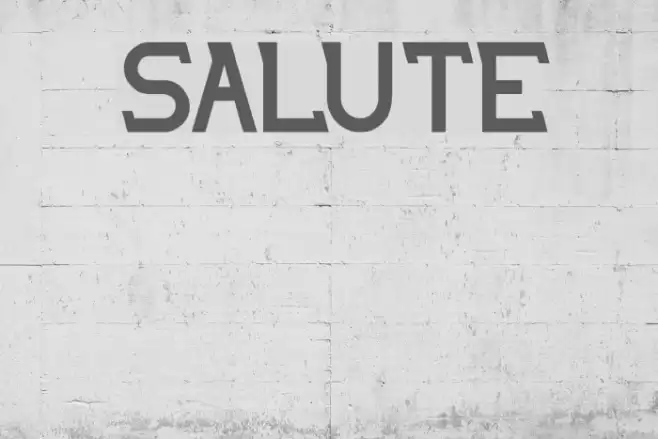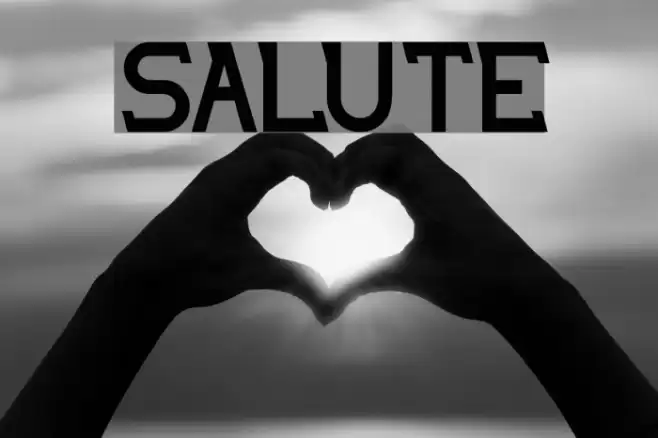
salute Font
salute Description
This font features a bold and geometric design with a modern aesthetic. The characters are constructed with strong, angular lines and a consistent stroke width, giving it a robust and impactful appearance. The uppercase letters exhibit a uniform height and width, creating a cohesive and structured look. The font's design is clean and straightforward, making it suitable for various applications where clarity and emphasis are needed. Its boldness ensures that it stands out, making it ideal for headlines or titles that require attention.
A bold, geometric font with a modern and impactful design from Uncategorized fonts.